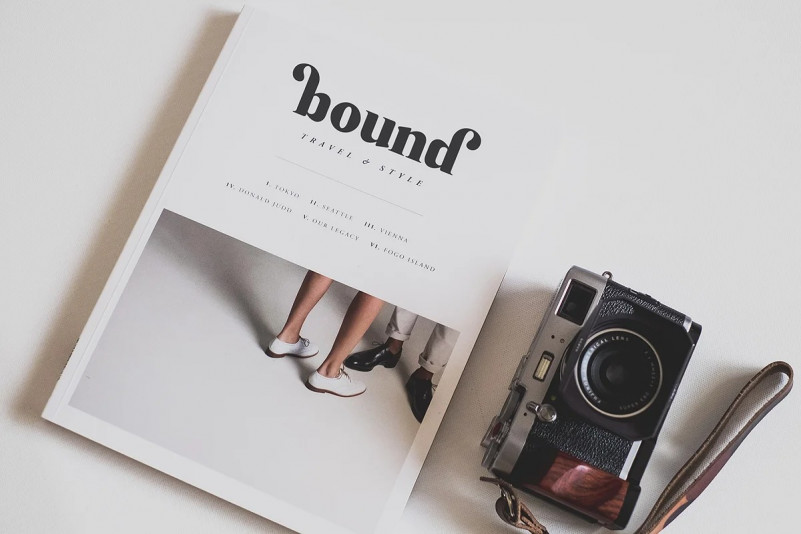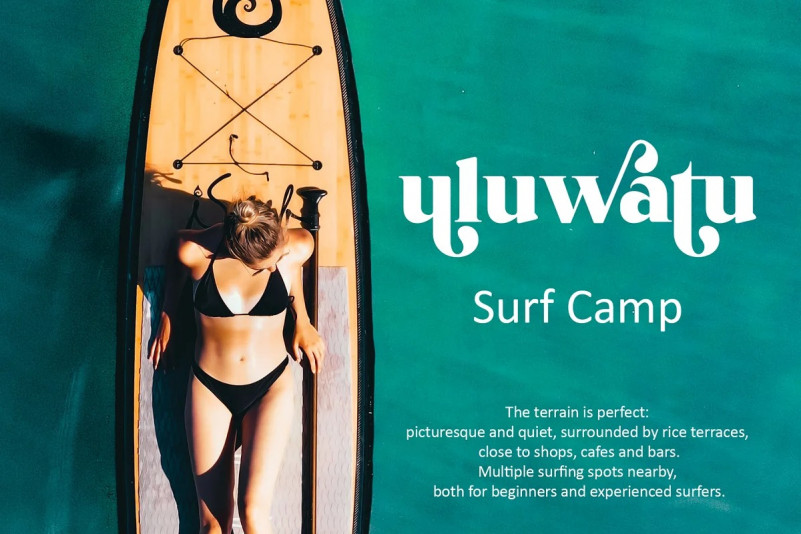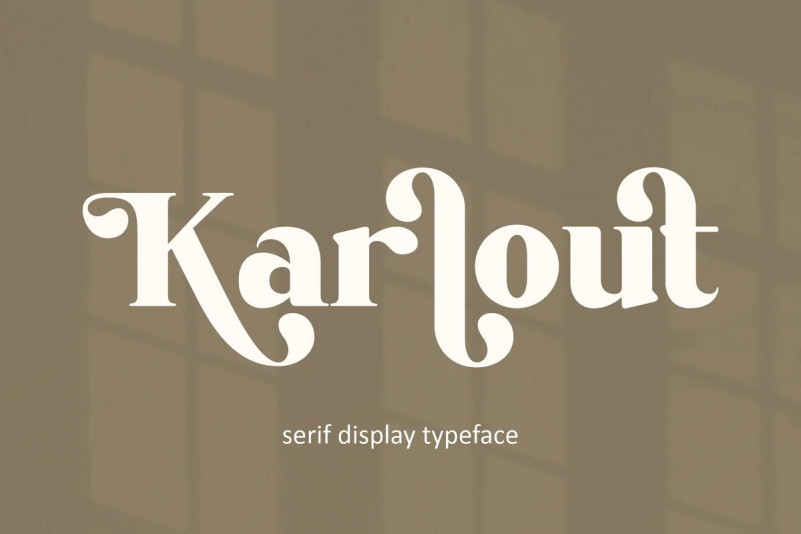
Karlout Serif Font
Karlout – elegant retro serif display with an artistic touch. Specially designed for vintage, retro, elegant projects, perfectly suitable for creating simple, lifestyle designs such as logos, title, packaging, and more. It is ideal for high impact headlines. The available style alternatives offer a number of different characters that give your logo or business card a unique look.